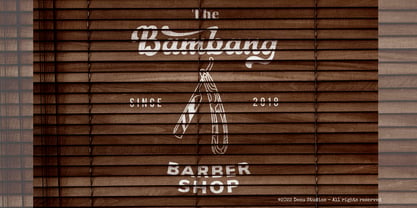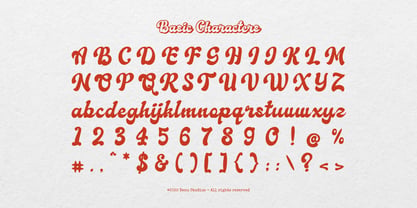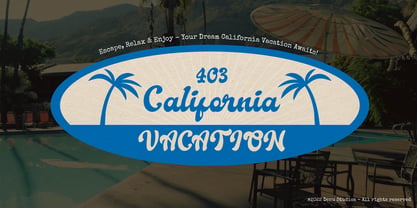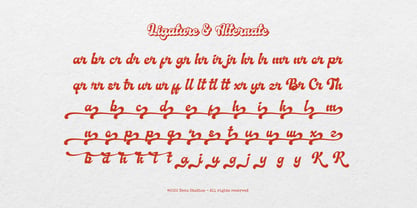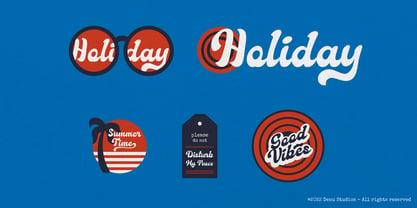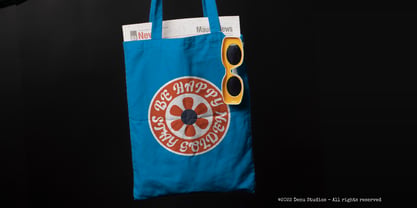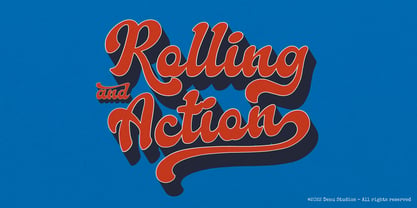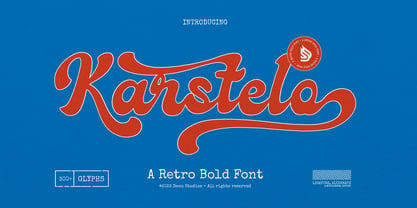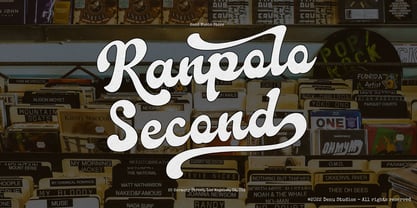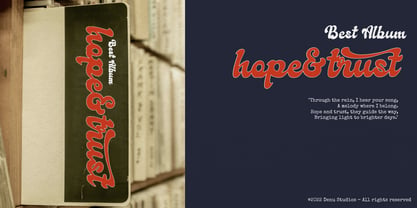
Karstelo
The Karstelo Font Family was designed by Dede Nugraha and published by Denustudio. Karstelo contains 2 styles and family package options. More about this family
Karstelo | Retro Bold Font, from Denustudios, suitable for any projects such as: logos, branding projects, homeware designs, product packaging, mugs, quotes, posters, shopping bags, t-shirts, book covers, name card, invitation cards, greeting cards, label, photography, watermark, special events, and all your other lovely projects that need Retro Bold Font a taste.
• Regular and Italic
• Standard glyphs
• Alternate and Ligature
• Fonts include multilingual support